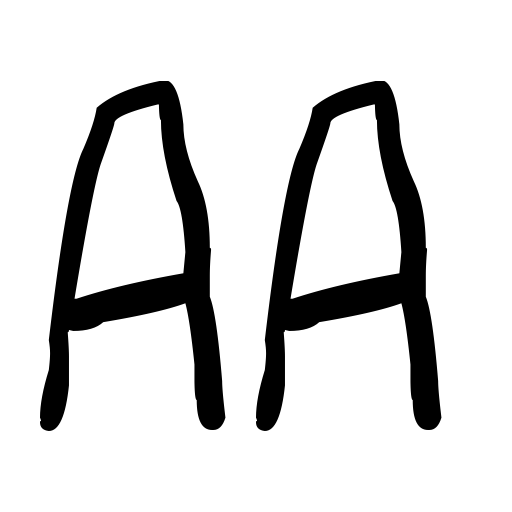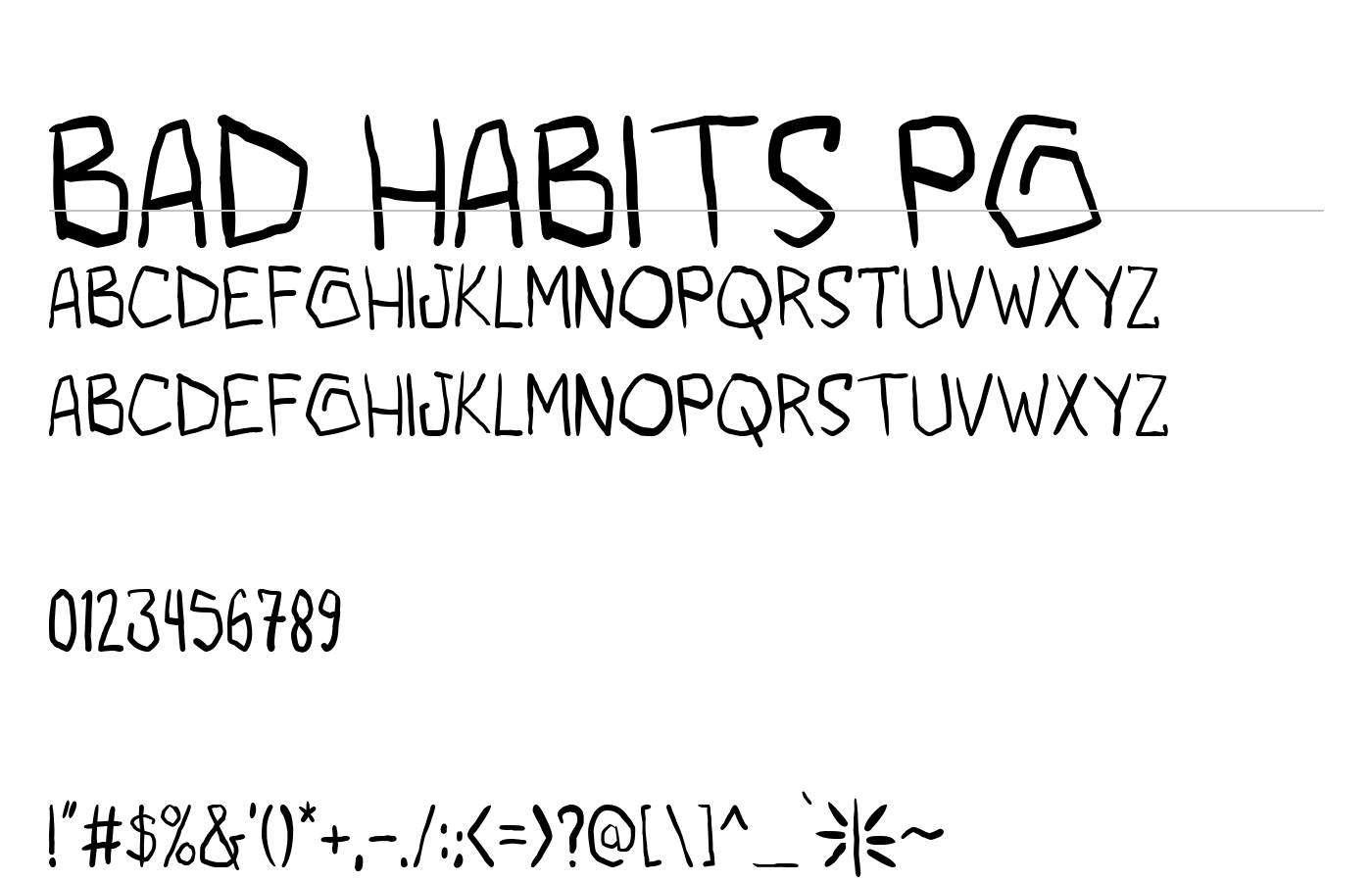
Bad Habits pg is a quirky, hand-drawn sans serif font with an uneven, playful style that feels casual and expressive. Its tall, narrow letterforms and irregular strokes give it a unique, slightly rough charm, perfect for creative projects that want to convey spontaneity and personality. This font works wonderfully for eye-catching headlines, posters, and informal branding where a fun, unconventional vibe is desired.
bad habits pg Font